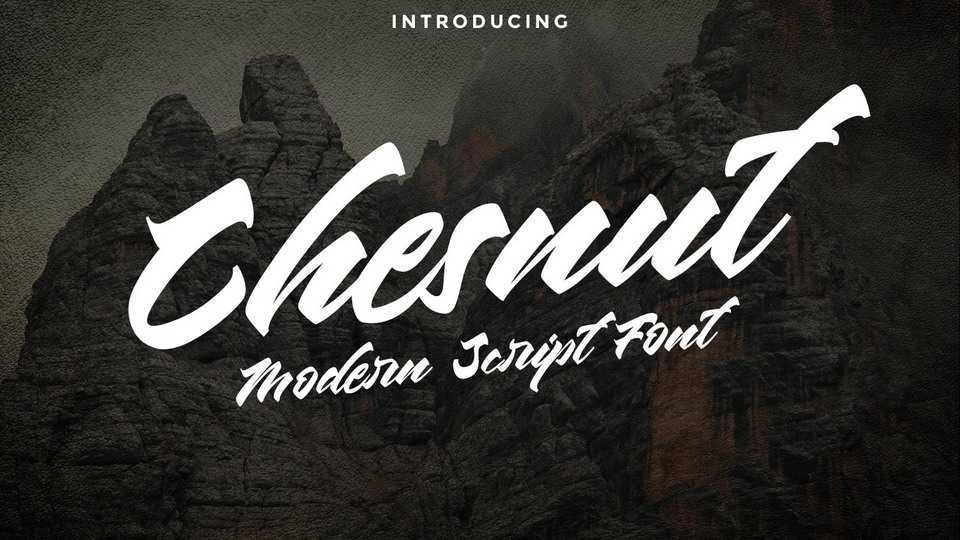
Download Chesnut font, a stylish modern calligraphy typeface with a casual style that is absolutely great for your next creative project such as logos, printed quotes, invitations, cards, product packaging, headers, logotype, letterhead, poster, apparel design, label and etc.